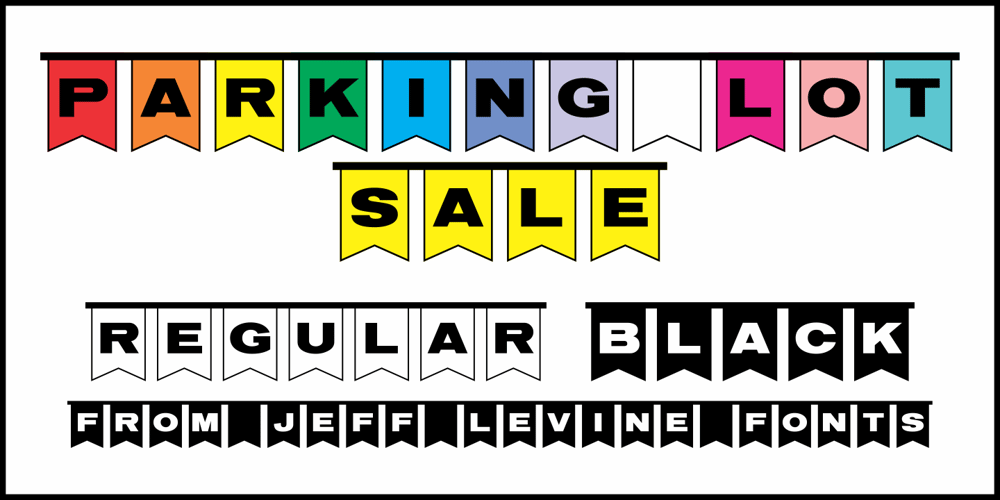
Parking Lot Sale JNL Font Family was designed by Jeff Levine and published by Jeff Levine. Parking Lot Sale JNL contains 2 styles and family package options. Here’s a novelty font emulating the plastic pennant streamers that were popular in the 1950s and 1960s used to decorate a store parking lot or used car lot for a sales event.The typeface inside the individual pennants is Manufacturer JNL, which can be used for body copy associated with titles made by this font.Parking Lot Sale JNL is available in regular (black letters on white pennants) and black (with white letters). A blank pennant for word spacing or end caps is available on the backslash key.